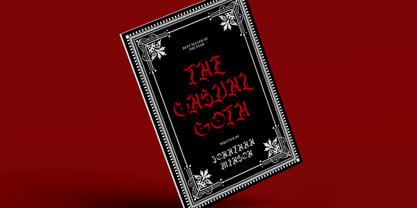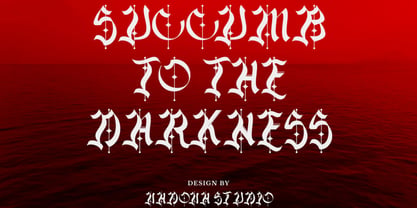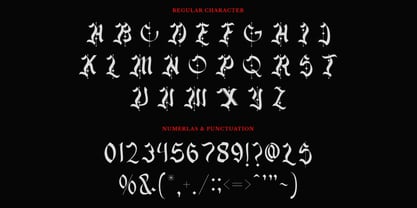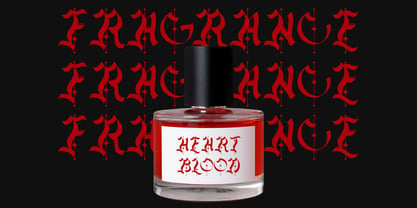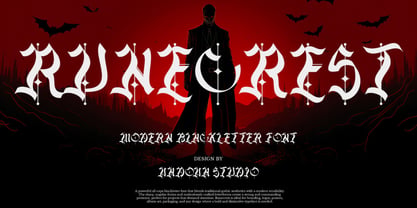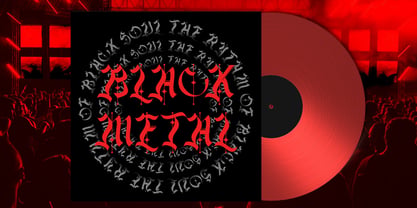
Runecrest
Elevate your designs with Runecrest Blackletter Font, a font perfect for adding elegance and style to your projects. Whether it’s for quotes, logotypes, magazine headers, or more, this versatile typeface ensures your text stands out beautifully.